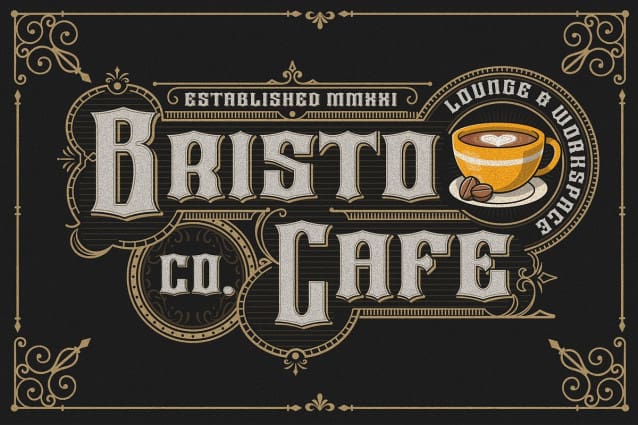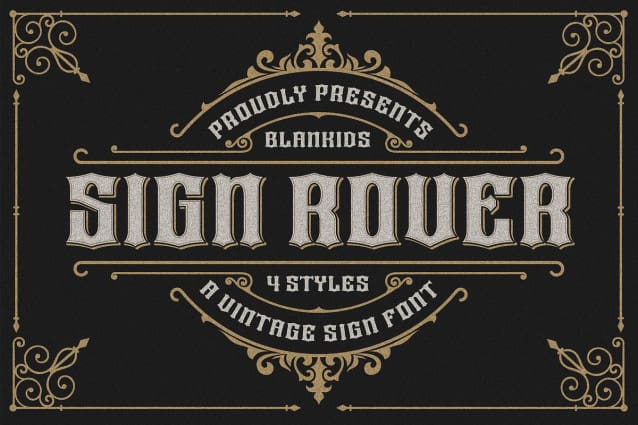
Sign Rover Font
Sign Rover Font a Vintage Sign Font Sign Rover a Vintage Sign Font, Inspiring from old signage typography. This font is perfect for a design that makes it more attractive and playful. made with a very good level of aesthetics making this font suitable for book cover, poster, packging, merchandise, logotype and much more.